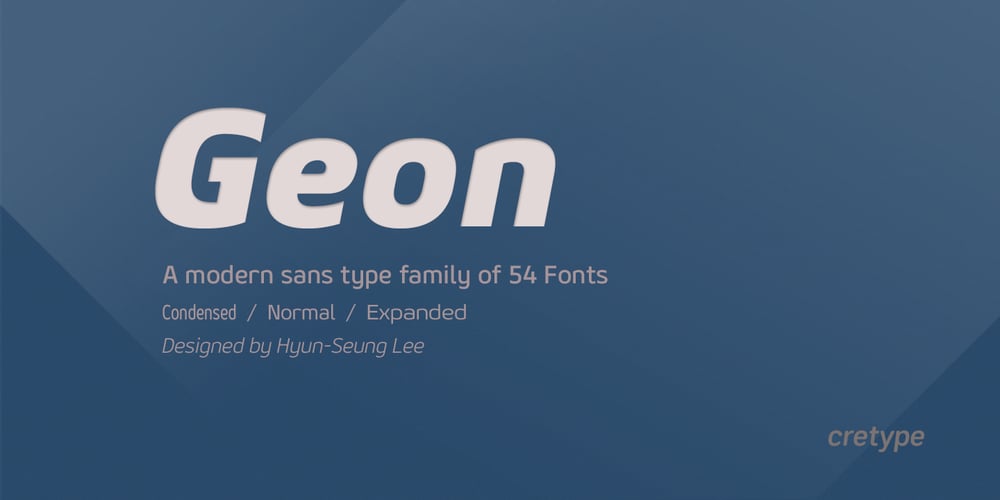
Geon Font Family was designed by Hyun-Seung Lee and published by cretype. Geon contains 54 styles and family package options. Geon Family is a modern sans-serif typeface that is clean, simple and highly readable. Letters in this type family are designed with geometric shapes without any decorative distractions. The spaces between individual letter forms are precisely adjusted to create the perfect typesetting. Geon is a versatile type family of 54 fonts. Geon family consists of 9 weights (Thin, ExtraLight, Light, Regular, Medium, Bold, ExtraBold, Heavy & Black) & 3 widths (Condensed, Normal & Expanded)with their corresponding italics. The Open Type fonts contain complete Latin 1252, Cyrillic, Central European 1250, Turkish 1254 character sets. Each font includes proportional figures, tabular figures, numerators, denominators, superscript, scientific inferiors, subscript, fractions and case features. We highly recommend it for use in books, web pages, screen displays, and so on.